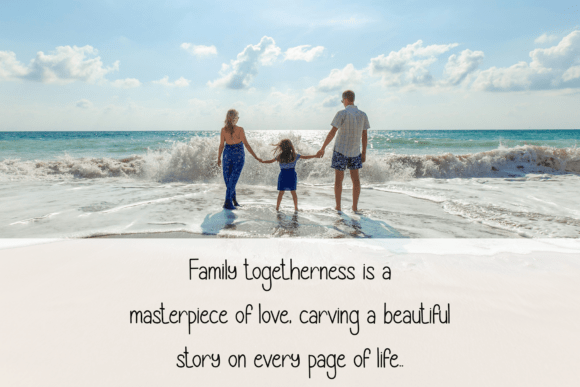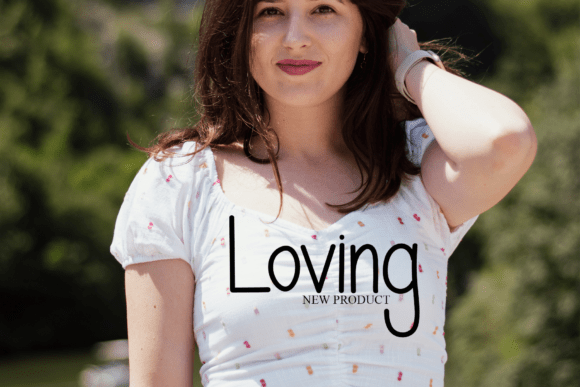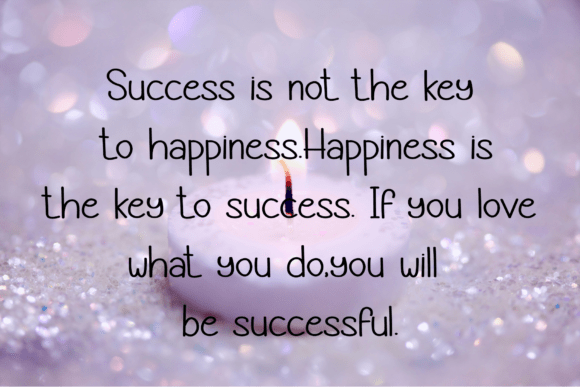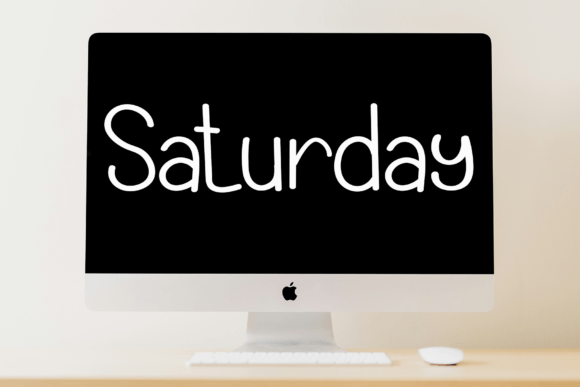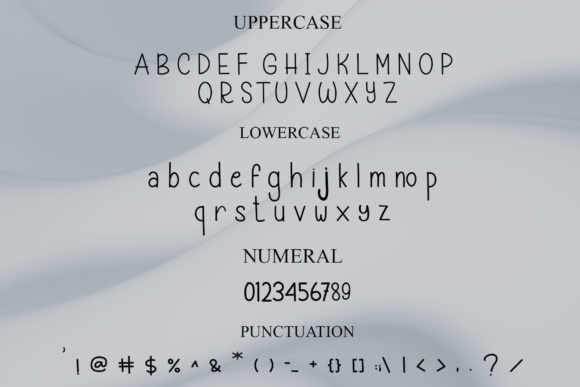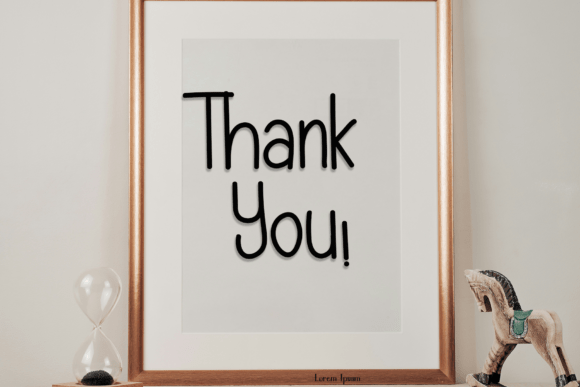
The Easter Font: A Playful and Creative Companion for Your Design Projects
I’ll never forget the time I was working on a Easter-themed invitation for a client, and I just couldn’t find the right font to match the playful and cheerful vibe of the design. I scoured through font libraries, but nothing seemed quite right. That was until I stumbled upon the Easter font, a casual and creative font that exudes warmth and friendliness. Its round, playful strokes create a relaxed and approachable feel, perfect for personal projects, invitations, and social media graphics.
I’ve had the chance to work with the Easter font on several projects, and here’s my honest review:
- ✨ I love the charming, hand-drawn aesthetic that adds a fun and unique touch to any design.
- ✅ The font’s playful strokes create a relaxed and approachable feel, perfect for Easter-themed designs, invitations, and social media graphics.
As for quirks, I’ve noticed:
- 🤔 The font might not be the best choice for very formal or professional designs, as it has a distinctly casual and playful feel.
- ⚠️ Some users might find the font a bit too ’rounded’ or ‘blobby’ for their taste, but I think this is part of its charm.
The Story Behind the Easter Font
The Easter font was designed with the intention of creating a friendly and approachable font that would be perfect for creative projects. The designer wanted to capture the feeling of hand-drawn letters, while still maintaining a level of legibility and versatility. The result is a font that’s both playful and elegant, perfect for Easter-themed designs, invitations, and more.
Q: What is the Easter font?
A: The Easter font is a casual and creative font that exudes warmth and friendliness. Its round, playful strokes create a relaxed and approachable feel, perfect for personal projects, invitations, and social media graphics.